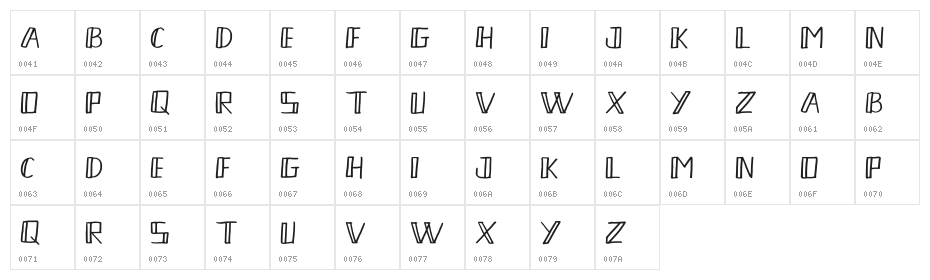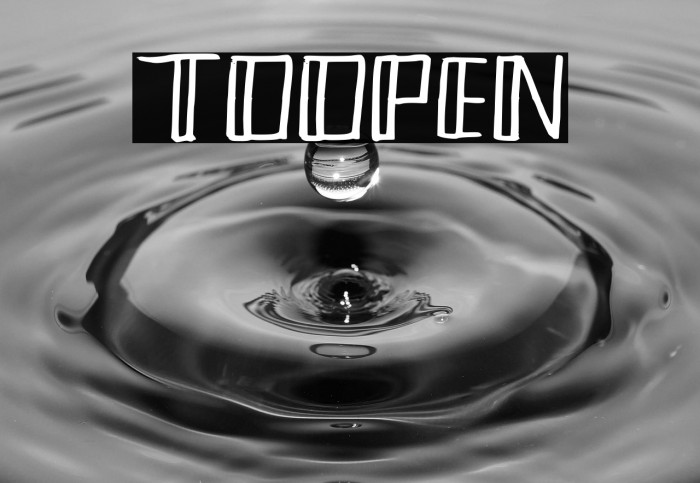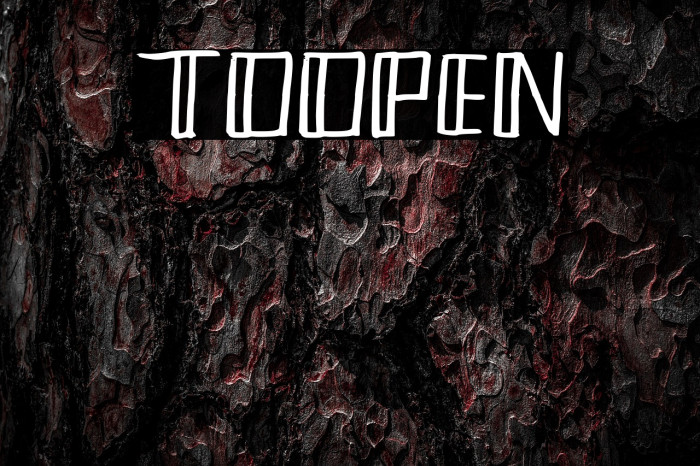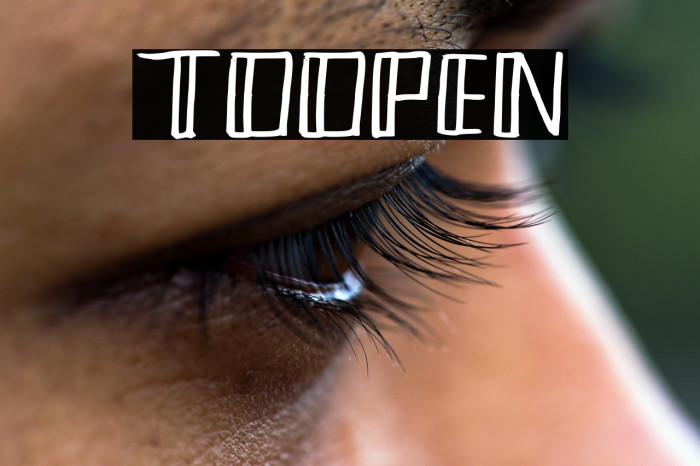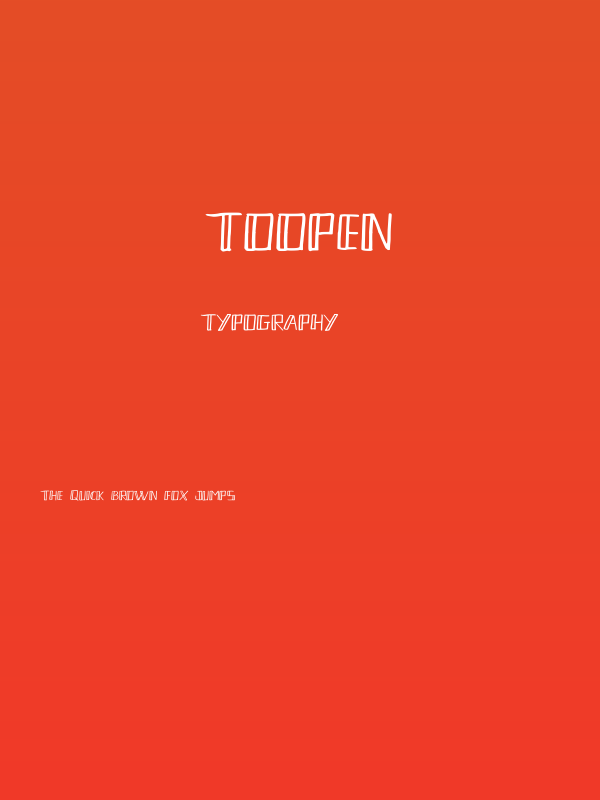
TOOPEN Font
TOOPEN Description
This font features a unique, hand-drawn style with a playful and artistic flair. Each letter is crafted with a slightly uneven stroke, giving it a casual and informal appearance. The uppercase letters are tall and narrow, with a consistent height across the alphabet. The strokes are bold and have a medium contrast, with some letters featuring angular edges and others with more rounded forms. The overall look is dynamic and energetic, making it ideal for creative projects that require a personal touch. The spacing between characters is normal, allowing for easy readability while maintaining the font's distinctive style.
Proposed ProjectsIdeal for creative projects such as posters, invitations, and branding materials that seek a personal and artistic touch.